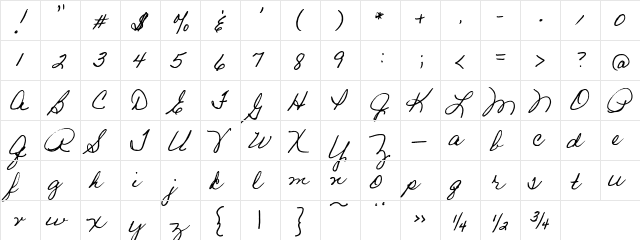
FG Cathie's Hand Regular
Design Context for FG Cathie's Hand Typeface
FG Cathie's Hand brings a calligraphic fluidity to the page — its connecting strokes and expressive curves give it an unmistakably human quality.
Font Pairing: Combine FG Cathie's Hand with a simple geometric sans for maximum contrast — the tension between flowing curves and clean structure is a classic typographic pairing.
Pro Tip: Pair FG Cathie's Hand with a clean sans-serif for supporting text. The contrast between fluid script and geometric structure creates an elegant typographic hierarchy.